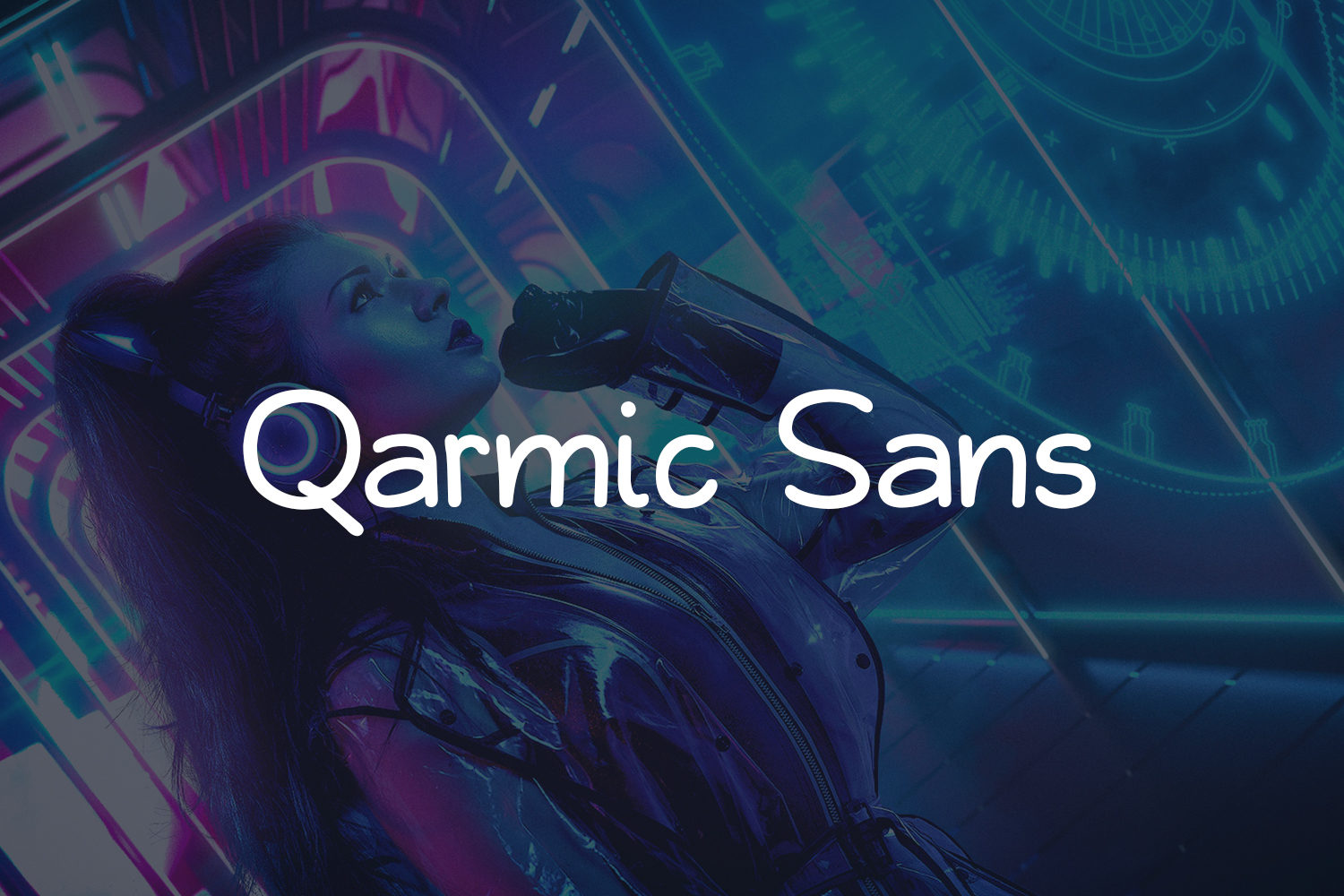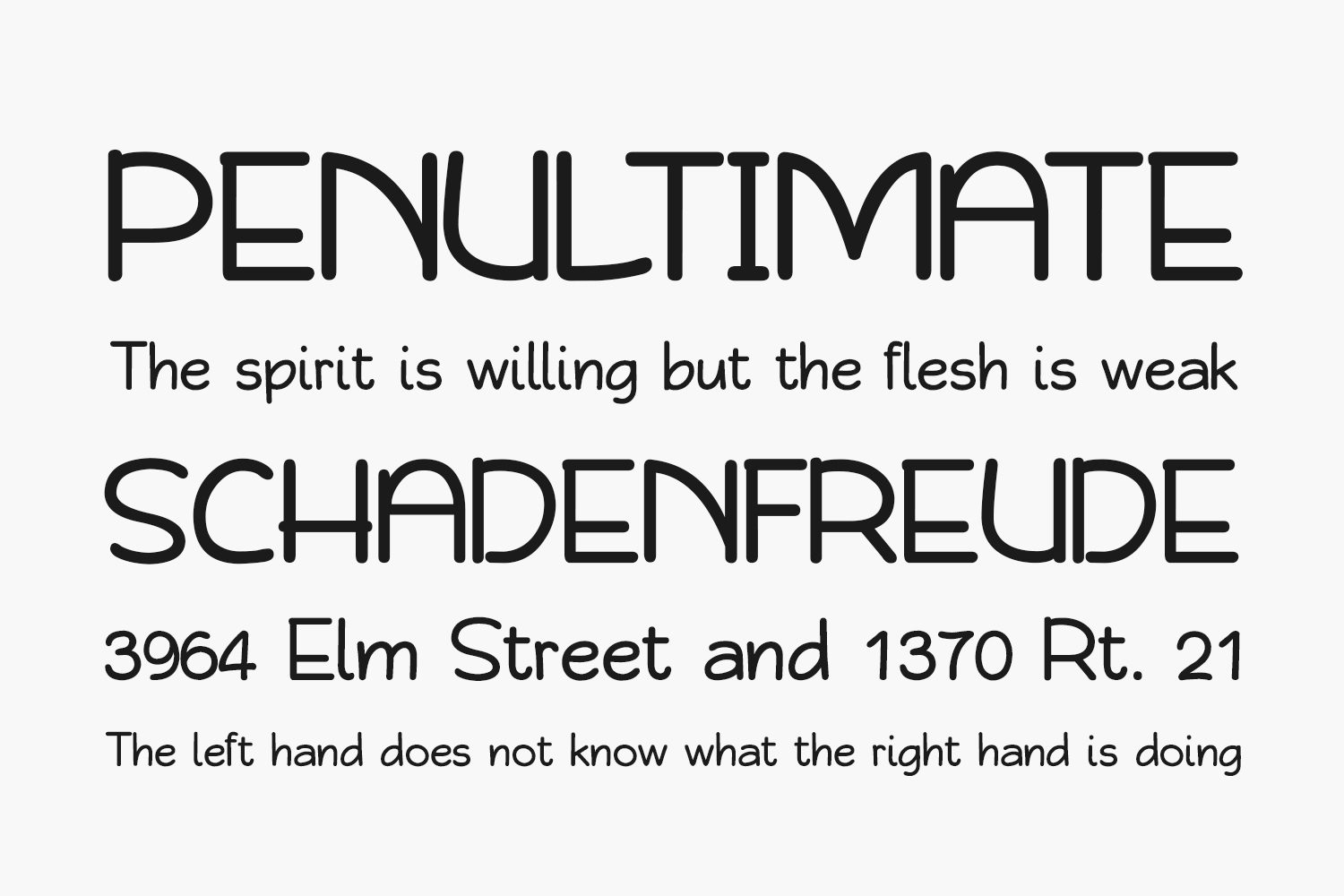
From its name, it’s obvious that this font is how i would have designed Comic Sans. It’s a bit rounder and i like to think it is more friendly for kids and casual stuff.